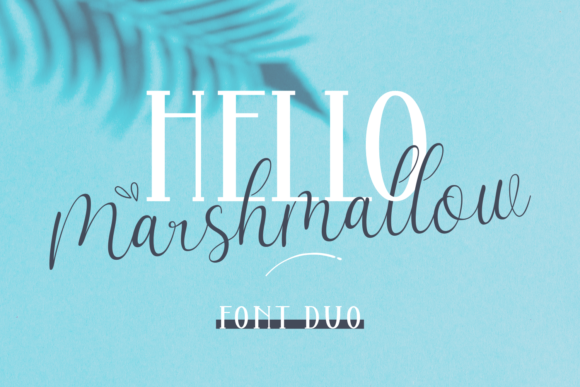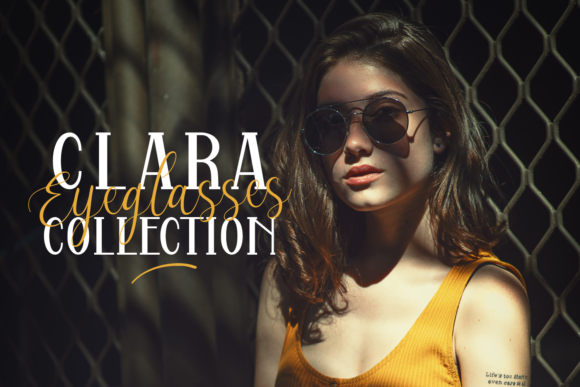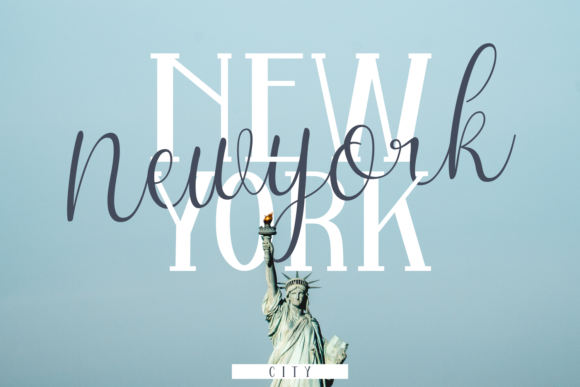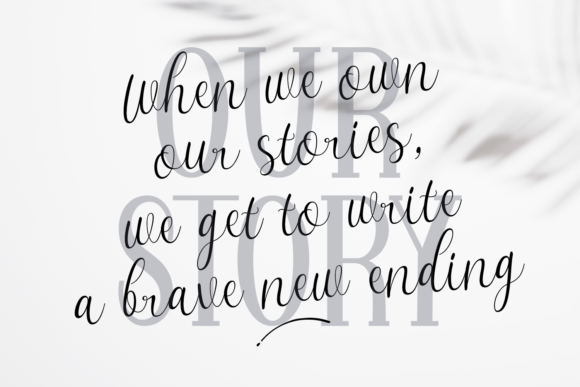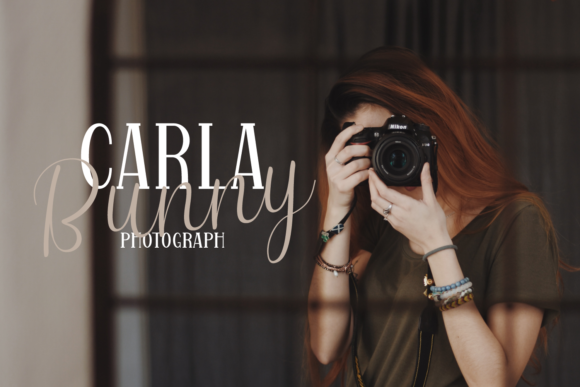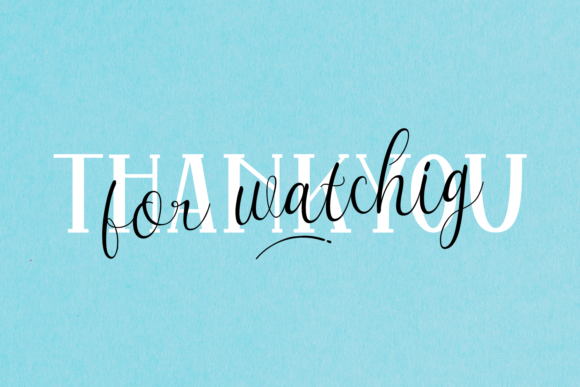
HomeScript FontsHello Marsmallow Duo Font Script Fonts Hello Marsmallow Duo Font FacebookXPinterestWhatsApp Hello Marsmallow Duo Font Poster 2 Hello Marsmallow Duo Font Poster 3 Hello Marsmallow Duo Font Poster 4 Hello Marsmallow Duo Font Poster 5 Hello Marsmallow Duo Font Poster 6 About Hello Marsmallow Duo Font Hello Marsmallow is a sweet and cool font duo with a unique style. Get inspired by its contemporary vibe. DOWNLOAD NOW People also explored Jasmine Font Jamilah Script Font Deria Font Routhem Font Geotermal Font Crossword Puzzle Font Snow Ice Cream Font Feed Your Soul Font Magic Letter Font 331 0 TagsHello Marsmallow Duo Font Previous articleLightness FontNext articleStanding Font LEAVE A REPLY Cancel reply Comment: Please enter your comment! Name:* Please enter your name here Email:* You have entered an incorrect email address! Please enter your email address here Website: Save my name, email, and website in this browser for the next time I comment. Personal Use Free Miracles Personal Use Free Read more about this font Bashira Personal Use Free Read more about this font Doodle Font Personal Use Free Read more about this font Fake Receipt Personal Use Free Read more about this font BLOG The 10 Best Handwriting Fonts to Add Personality to Your Designs 10 of the Best Handwriting Fonts for Adding Personality to Your Designs There will undoubtedly be no other better choice than handwriting fonts to give... 5 Fonts That Will Dominate Design Trends in 2026 Best Fonts for T-Shirt Design – Top 2025 Picks How to Install and Use Fonts on Windows, macOS, and Web Projects